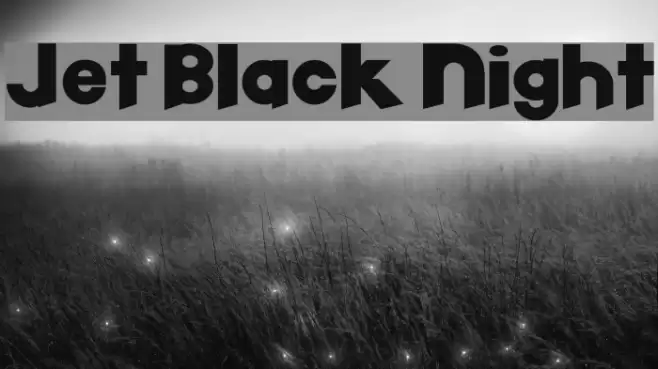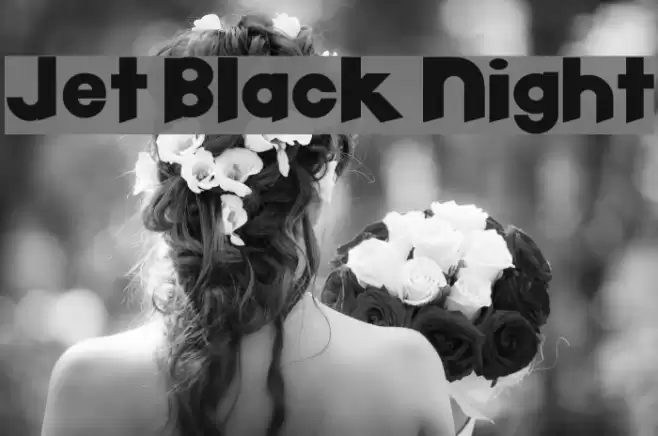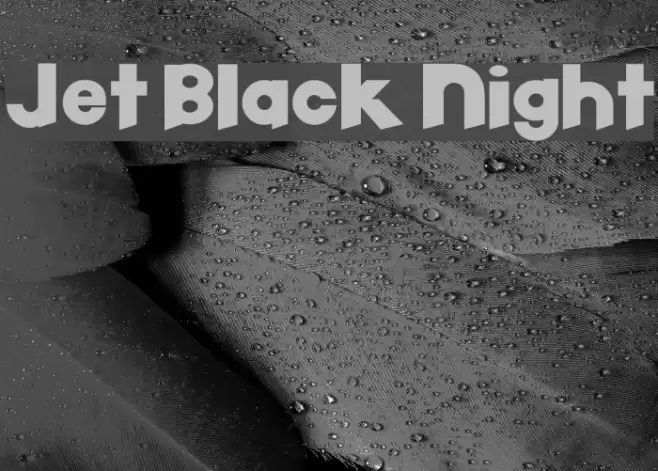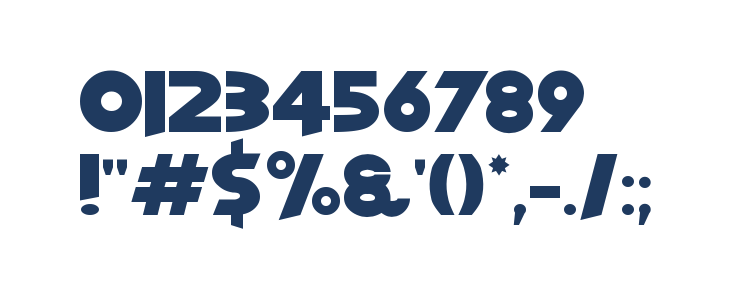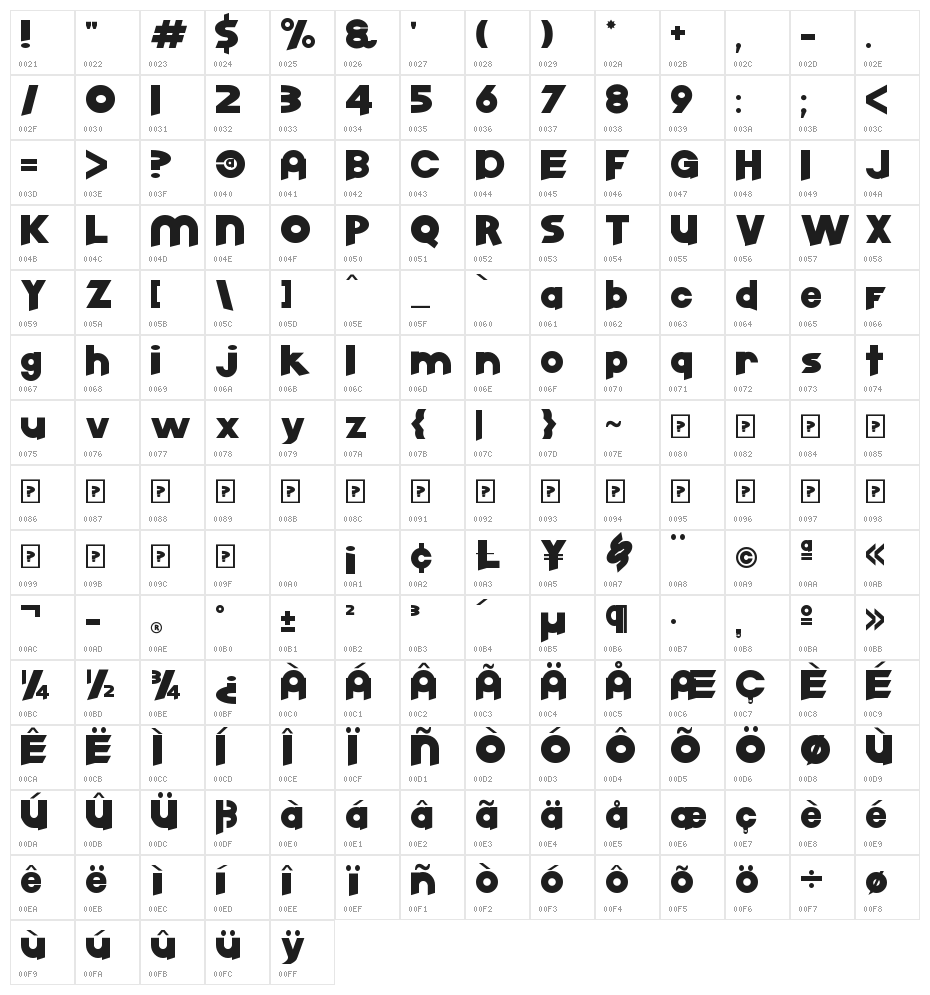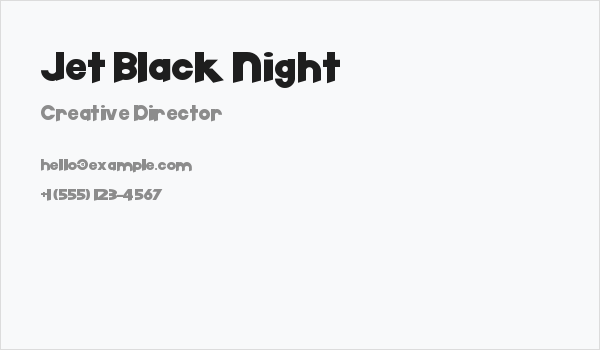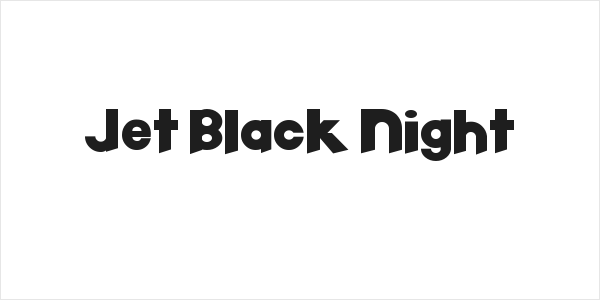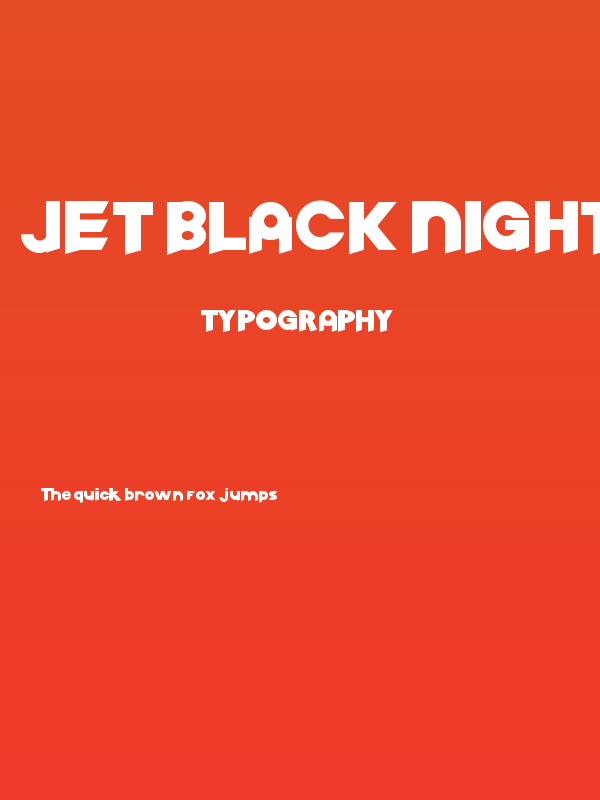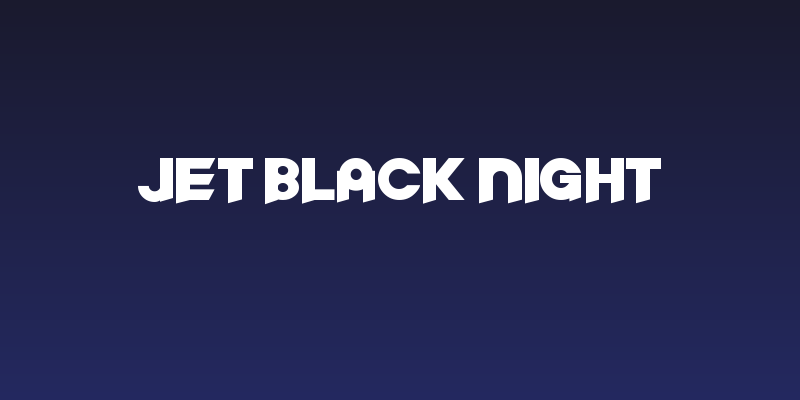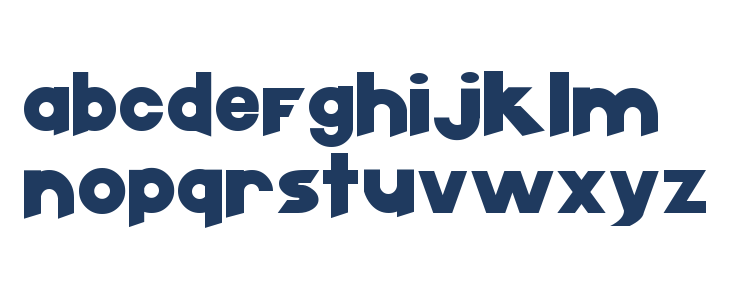
Jet Black Night Font
Jet Black Night Description
This font features bold, geometric characters with a strong presence. The letters are crafted with sharp angles and a consistent thickness throughout, giving it a modern and assertive look. The uppercase and lowercase letters maintain a uniform style, with rounded edges that soften the otherwise angular design. Numbers and special characters follow the same bold and dynamic aesthetic, making them stand out prominently. The overall design is clean and impactful, suitable for making a statement in any design project.
A bold, geometric font with sharp angles and a modern aesthetic from Uncategorized fonts.
- Proposed Projects: Ideal for branding, posters, headlines, and any project requiring a strong visual impact.